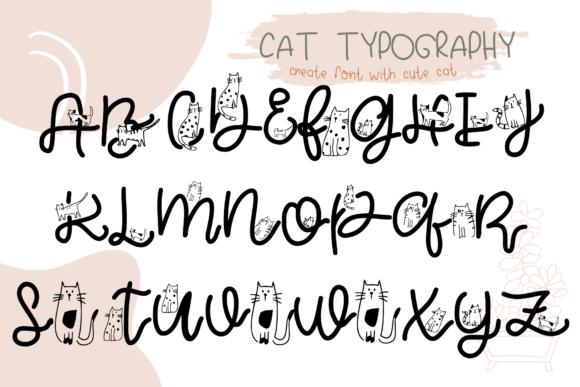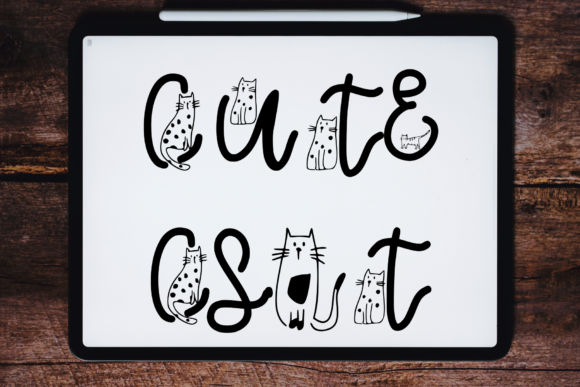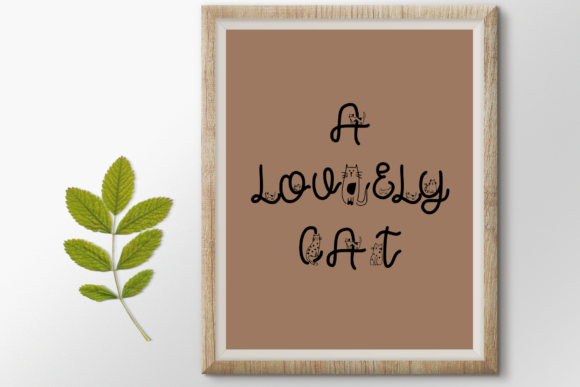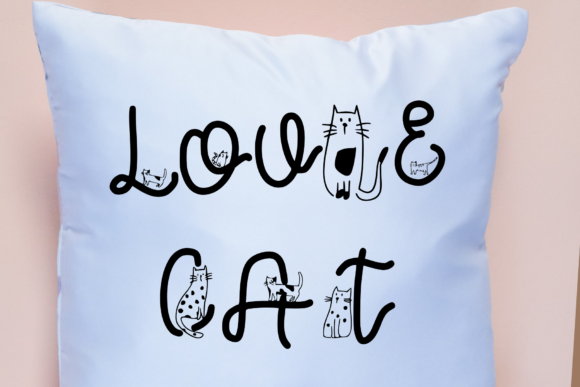
Whisker Wonders: The Delightful World of Cat Typography Font
Are you a cat lover, a designer, or a crafter looking for a unique and playful font to add some personality to your projects? Look no further than Cat Typography Font, a delightful decorative font that features lovely cats in various poses and expressions. This charming font is sure to capture your heart with its authentic feel and versatility, making it perfect for creating a wide range of creative projects.
What is Cat Typography Font?
Cat Typography Font is a digital font that showcases adorable cat illustrations in a typographic style. Each letter, number, and symbol is carefully designed to feature a cute cat, making it a one-of-a-kind font that’s sure to stand out. The font is perfect for designers, crafters, and anyone who loves cats and wants to add a touch of whimsy to their work.
Features of Cat Typography Font
- Cute and Playful Design: The font features lovable cat illustrations that are sure to bring a smile to your face.
- Authentic Feel: The font has a genuine, hand-drawn feel that makes it perfect for creating unique and personalized projects.
- Versatile: Cat Typography Font can be used for a wide range of projects, from invitations and stationery to social media posts and greeting cards.
Uses of Cat Typography Font
Cat Typography Font is a versatile font that can be used for a variety of creative projects, including:
- Invitations: Create adorable invitations for cat-themed parties, baby showers, or other special events.
- Stationery: Design beautiful stationery, including notebooks, journals, and greeting cards.
- Social Media Posts: Add a touch of personality to your social media posts with cute cat illustrations.
- Greeting Cards: Create heartwarming greeting cards for cat lovers and friends.
- DIY Projects: Use the font to create custom DIY projects, such as cat-themed signs, banners, and decorations.
Tips for Using Cat Typography Font
Here are some tips for getting the most out of Cat Typography Font:
- Experiment with Colors: Try pairing the font with different colors and textures to add depth and interest to your projects.
- Mix and Match: Combine Cat Typography Font with other fonts and graphics to create unique and eye-catching designs.
- Pay Attention to Details: Take the time to carefully select the right cat illustration for your project, and adjust the font size and style as needed.
Cat Typography Font is a delightful and versatile font that’s sure to capture the hearts of designers, crafters, and cat lovers alike. With its cute and playful design, authentic feel, and ease of use, this font is perfect for creating a wide range of creative projects. Whether you’re looking to add some personality to your social media posts, create adorable invitations, or design beautiful stationery, Cat Typography Font is the purrfect choice.